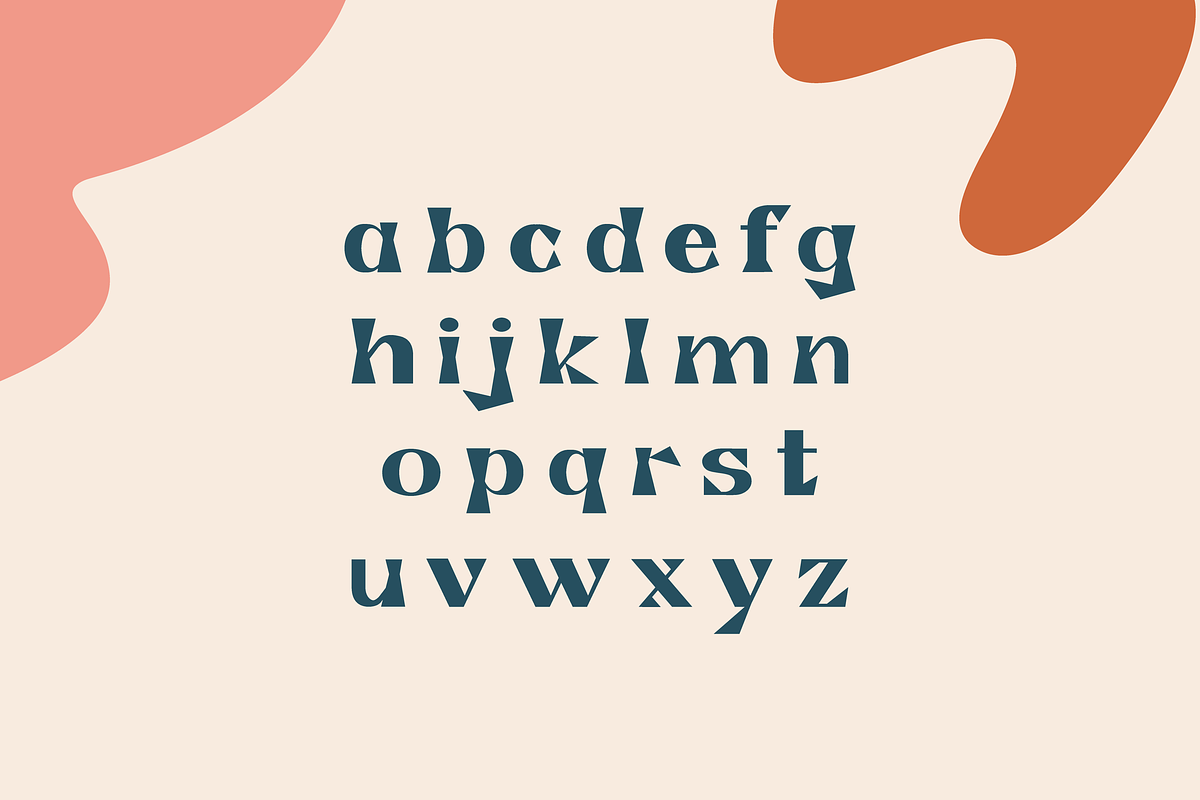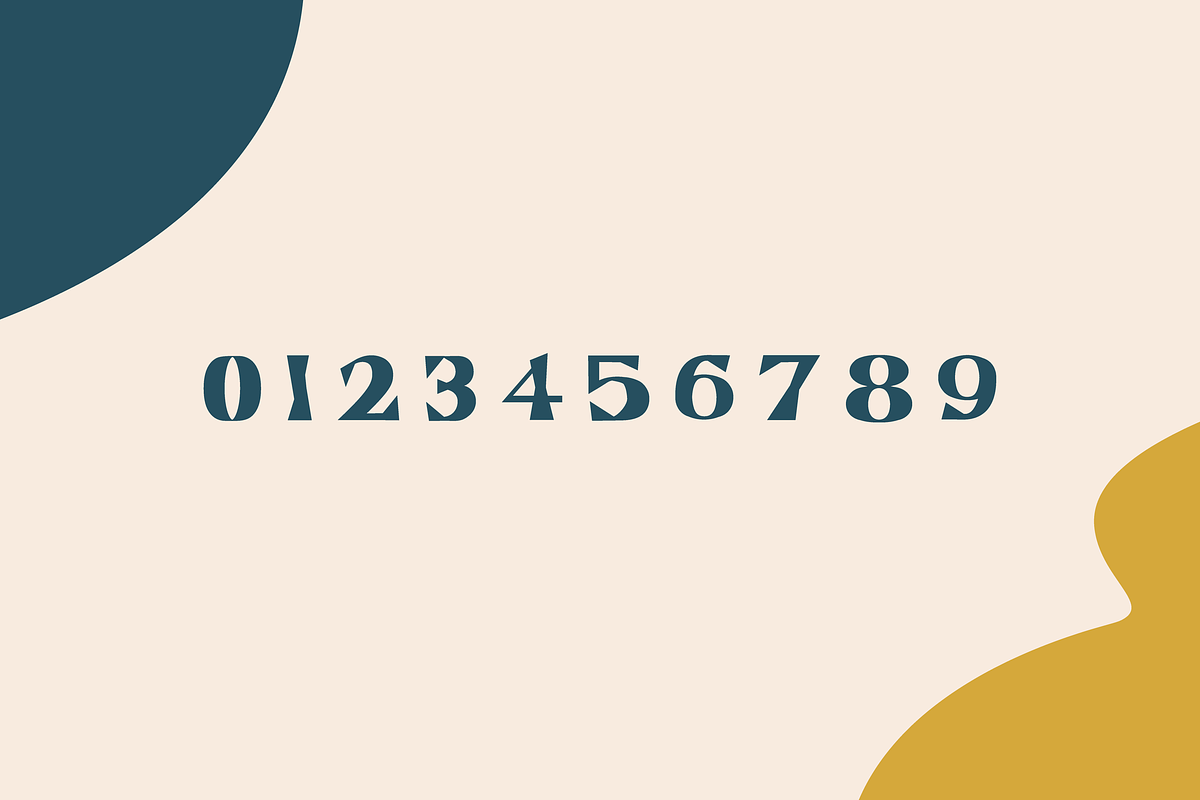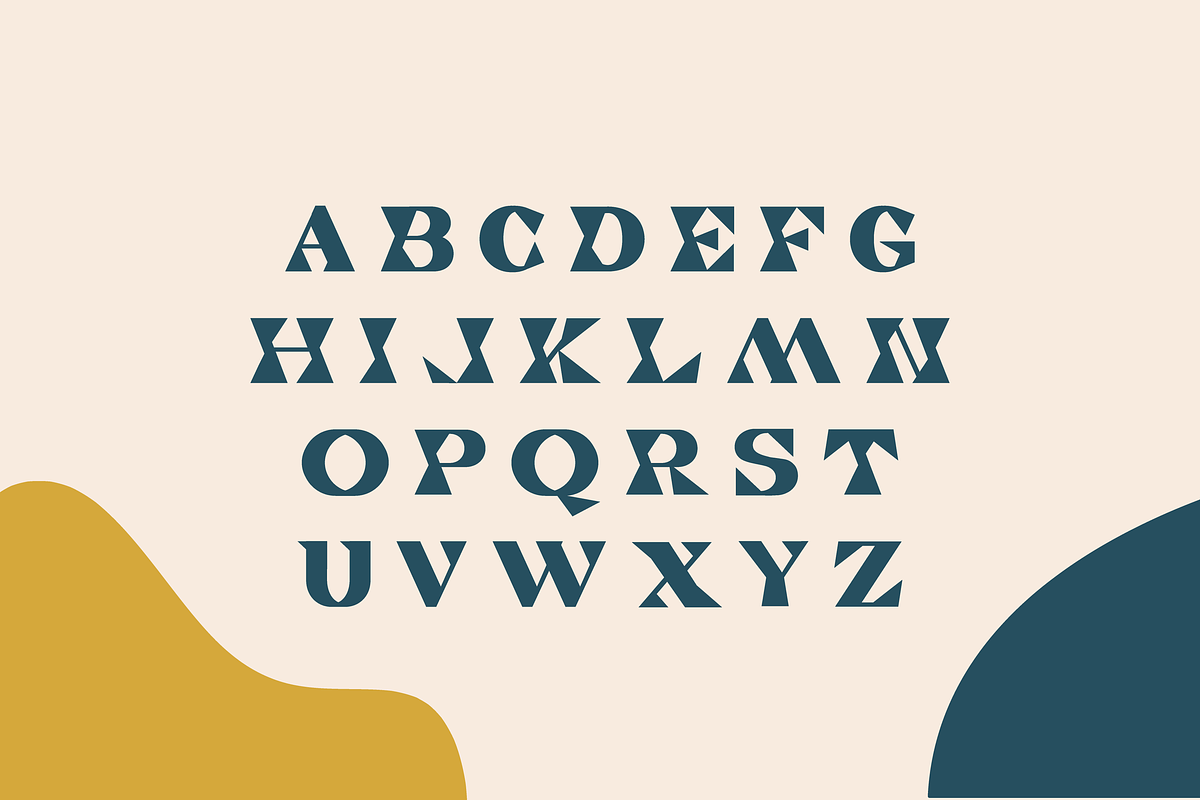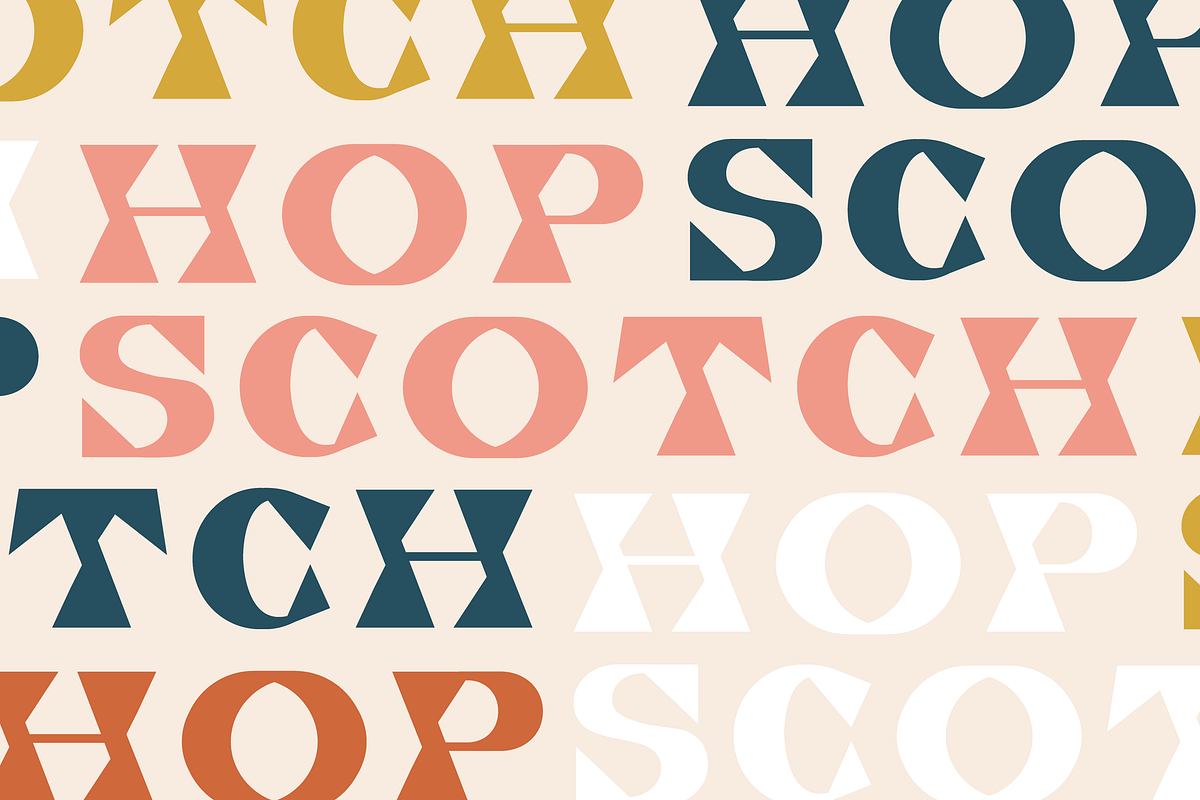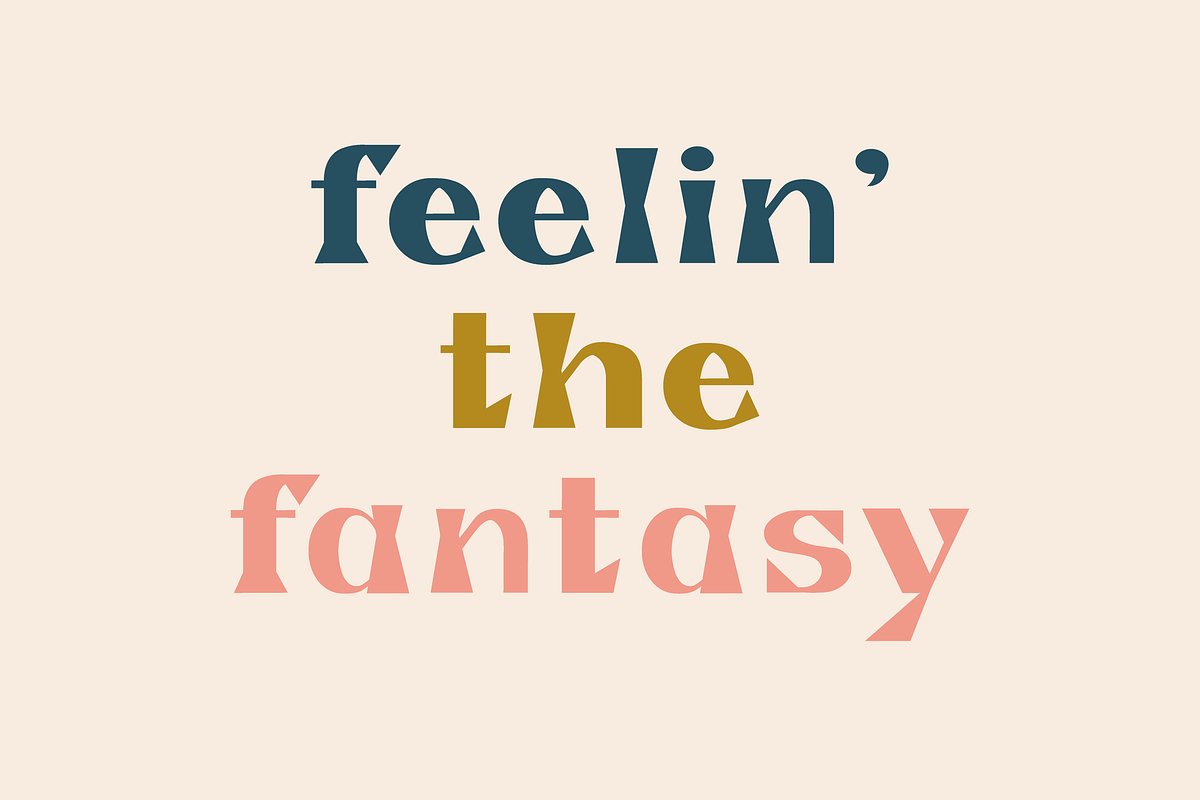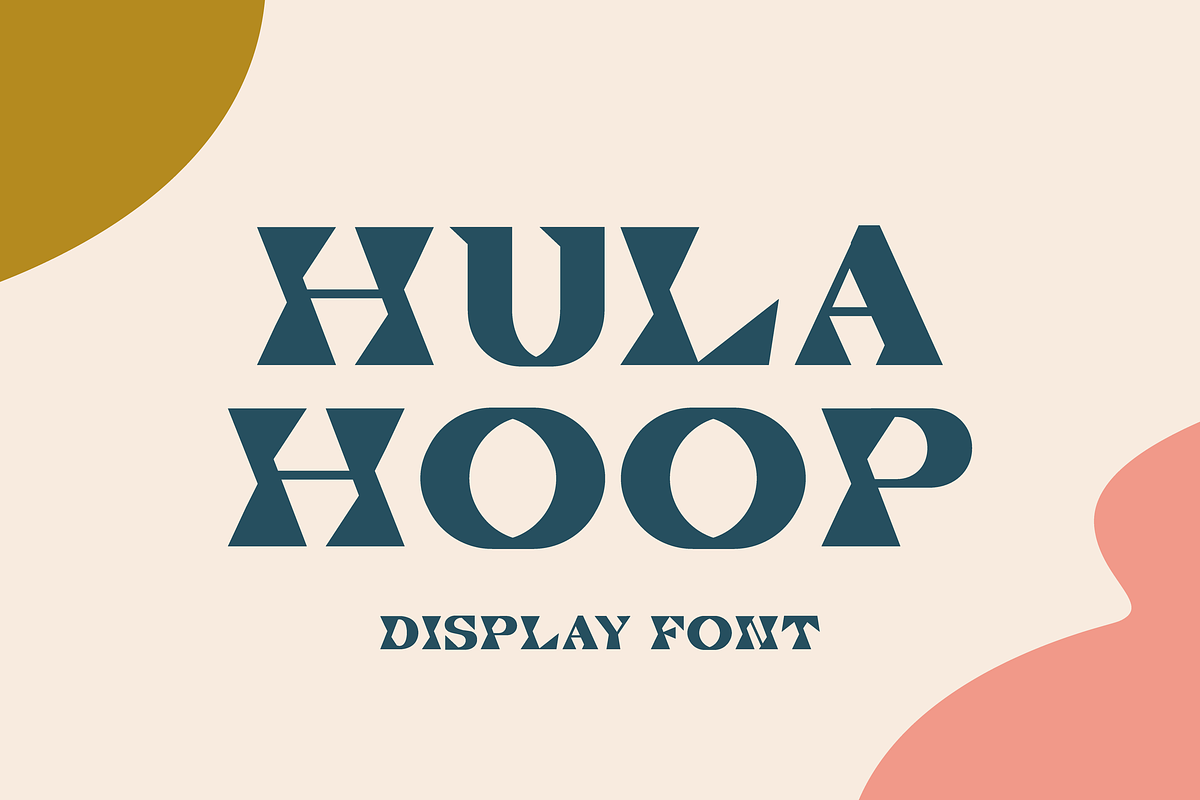
Hula Hoop - Fun Display Font
HULA HOOP
Hula Hoop is super groovy and experimental display font. Sort of a hippie meets geometric for a truly unique type experience! It super fun to play with this font and if your a designer it's a cool font to use as a base to manipulate to your liking.